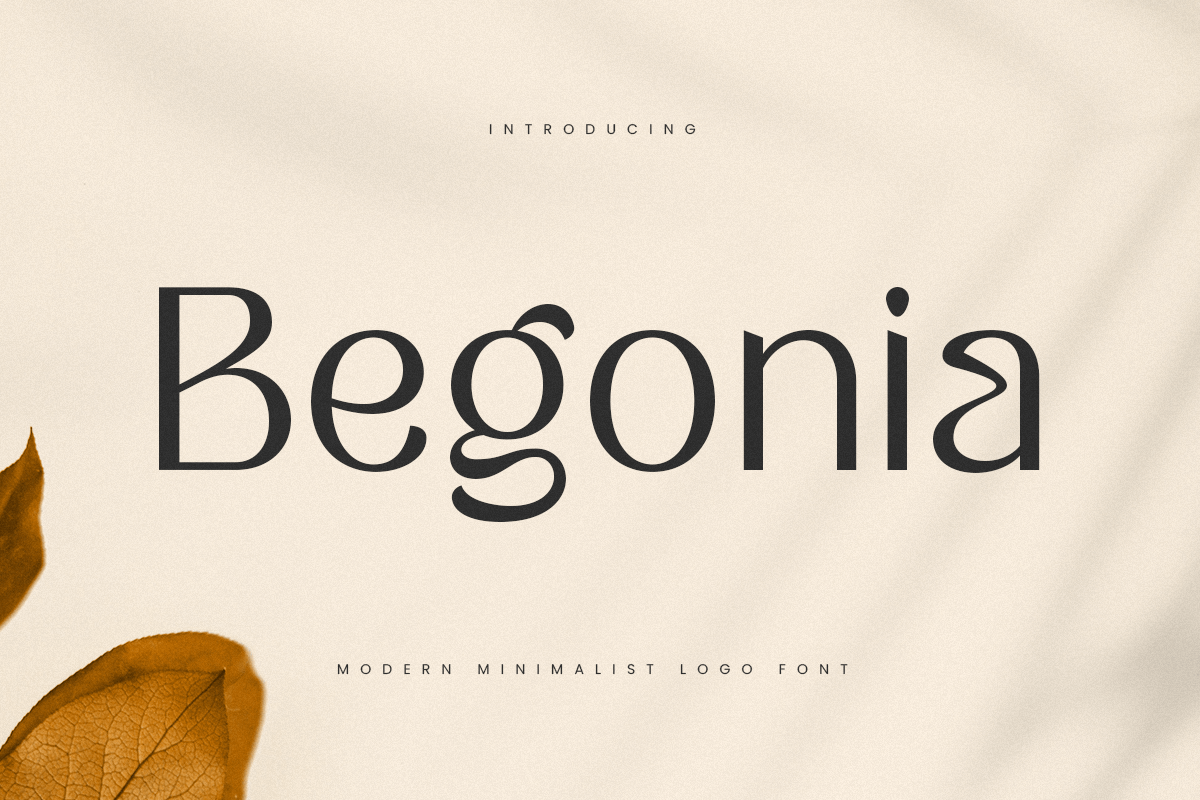
Begonia
-Modern Minimalist Logo Font
Begonia
A Modern Minimalist Logo Font that we created special for Luxury and Fashion branding needs, with extra characters unique shape will be ready to add value of your brand. It so nice to leverage designer or product owner that need solutions to make their design look more classy and modern. And specially for this font, We prepared any unique characters to help you create unlimited variations for your creative needs.